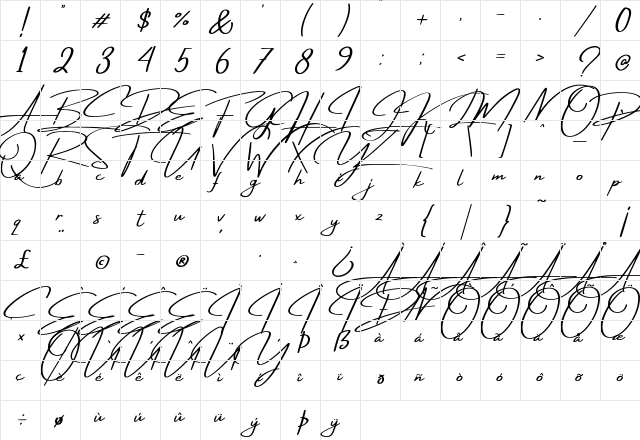
Amsterdam Four_ttf Regular Free Font
Amsterdam Four_ttf Regular
Designer: Lettersiro 2017
Complete Amsterdam Four_ttf Regular glyph index. Displaying only characters natively supported by Amsterdam Four_ttf Regular font.
Design Context for Amsterdam Four_ttf
Amsterdam Four_ttf is a composed and adaptable typeface that performs quietly and consistently across a wide range of design contexts.